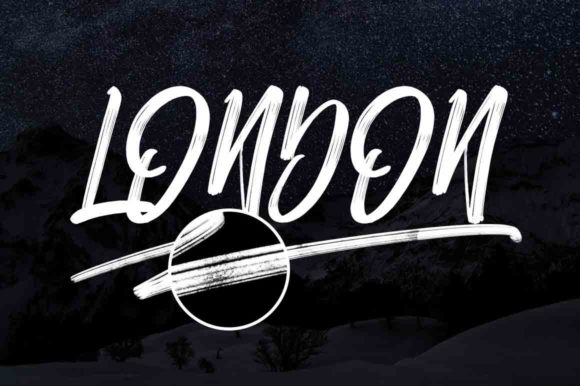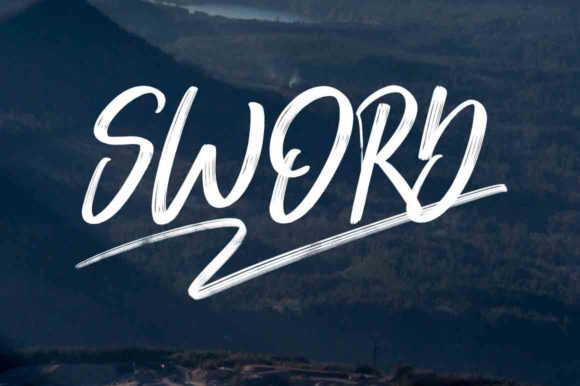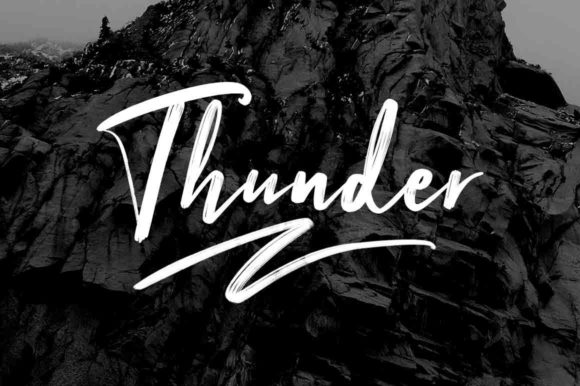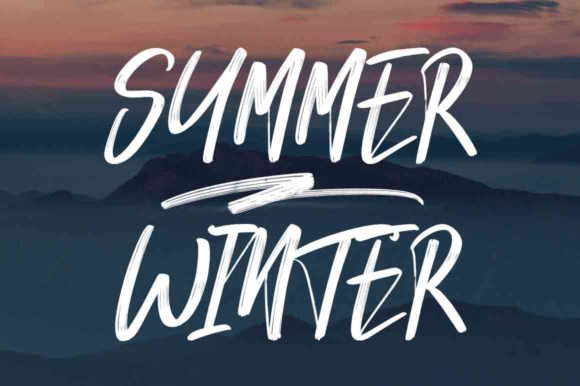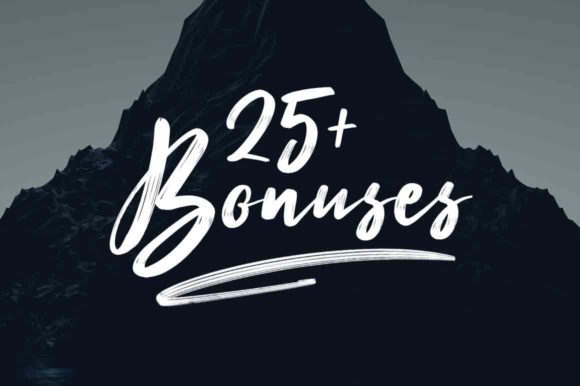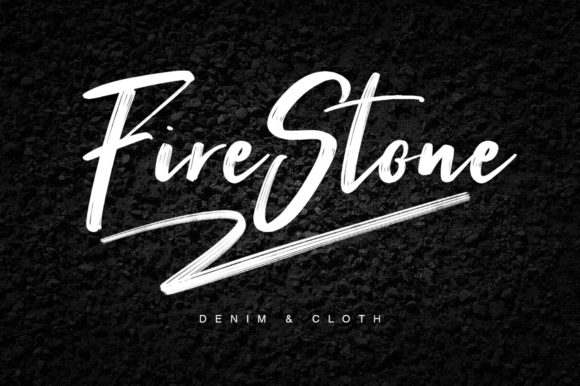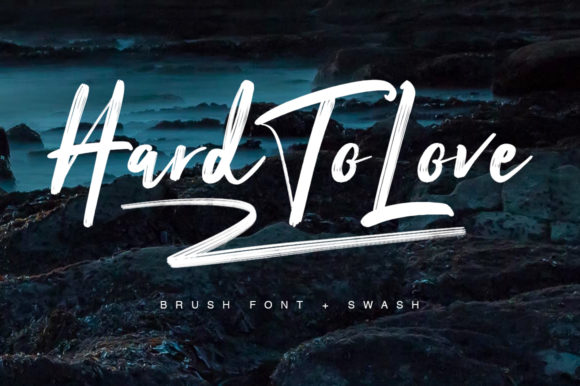
Discover the Charm of Hard to Love Font: A Beautifully Crafted Brushed Handwritten Font
Are you on the hunt for a font that can elevate your creative projects to new heights? Look no further than the Hard to Love Font, a stunning brushed handwritten font that is sure to capture your heart. Designed with love and care, this font is perfect for designers, crafters, and anyone looking to add a touch of personality to their work.
What Makes Hard to Love Font So Special?
Hard to Love Font is a masterpiece of font design, boasting a unique blend of elegance and playfulness. Its beautifully crafted letters are designed to resemble handwritten text, giving your projects a warm and personal touch. The font’s relaxed, brushed appearance makes it perfect for a wide range of applications, from romantic wedding invitations to trendy branding and packaging.
Key Features of Hard to Love Font
• Beautifully crafted letters: Each letter has been carefully designed to showcase a unique character, making your text stand out from the crowd.
• Relaxed, brushed appearance: The font’s soft, brushed texture gives it a warm and inviting feel, perfect for creating a cozy atmosphere.
• Easy to read: Despite its creative design, Hard to Love Font remains highly legible, making it suitable for both short and long texts.
• Versatile: Use it for a wide range of projects, from digital designs to print materials, and from formal to informal occasions.
Why Designers and Crafters Love Hard to Love Font
Hard to Love Font has quickly become a favorite among designers and crafters, and for good reason. Its unique design and versatility make it an excellent choice for a variety of projects, including:
• Branding and packaging: Add a personal touch to your brand with this beautiful font, perfect for labels, packaging, and marketing materials.
• Wedding and event planning: Create stunning wedding invitations, programs, and decorations with this romantic font.
• Digital designs: Use Hard to Love Font to create engaging social media graphics, blog posts, and website headers.
• Crafting and DIY projects: Add a touch of personality to your handmade crafts, such as journals, planners, and cards.
Tips for Using Hard to Love Font
To get the most out of Hard to Love Font, here are a few tips to keep in mind:
• Experiment with colors: The font’s brushed texture looks great in a variety of colors, so don’t be afraid to try out different hues and combinations.
• Mix and match: Combine Hard to Love Font with other fonts to create a unique look that suits your project’s style.
• Pay attention to spacing: Adjust the letter spacing to achieve the perfect balance between elegance and readability.
Hard to Love Font is a truly special font that has the potential to elevate your creative projects to new heights. Its beautiful, relaxed design makes it perfect for a wide range of applications, from romantic wedding invitations to trendy branding and packaging. Whether you’re a designer, crafter, or simply someone looking to add a touch of personality to your work, Hard to Love Font is sure to become a favorite in your collection.